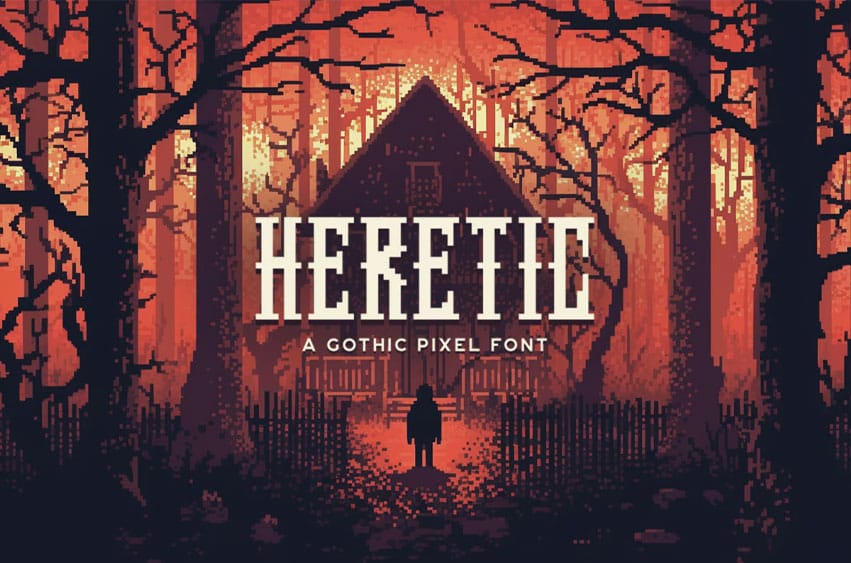
Heretic Font is a tall, gothic pixel font. It fits in headlines, logos, posters, flyers, invitations, name cards, branding materials, print media, editorial layouts, and many more.